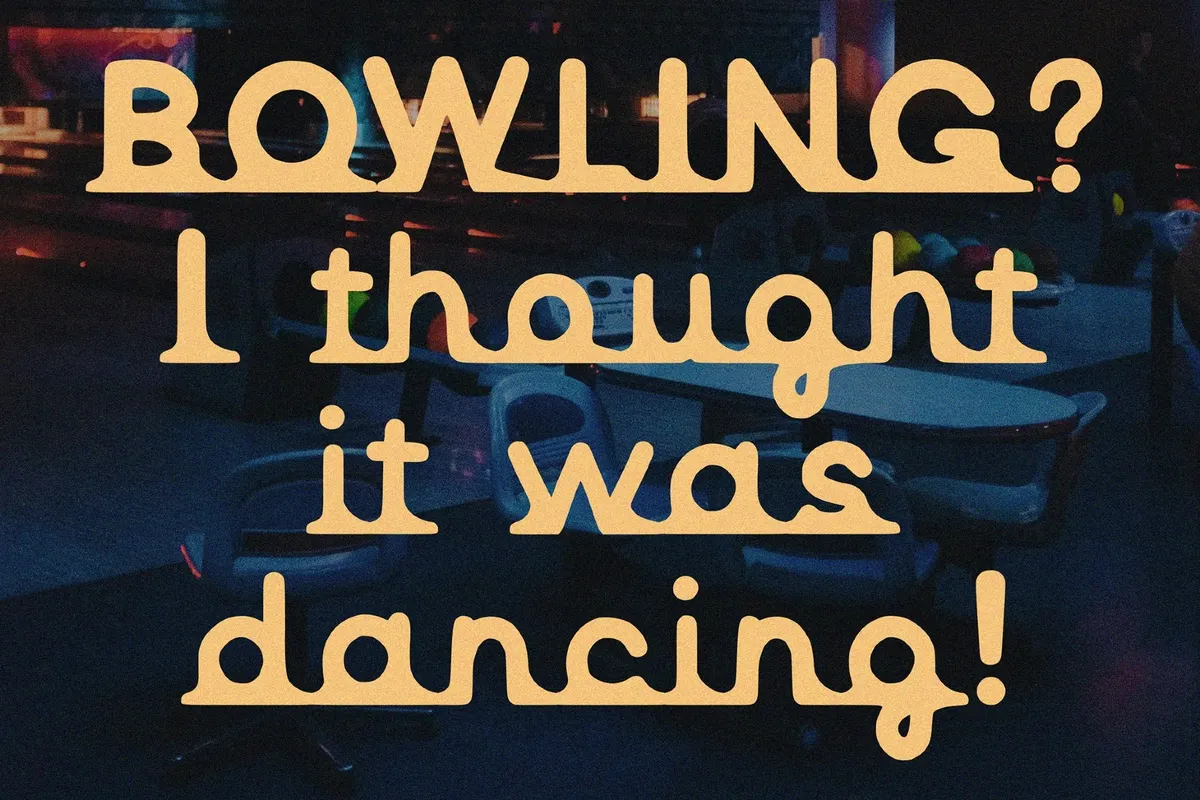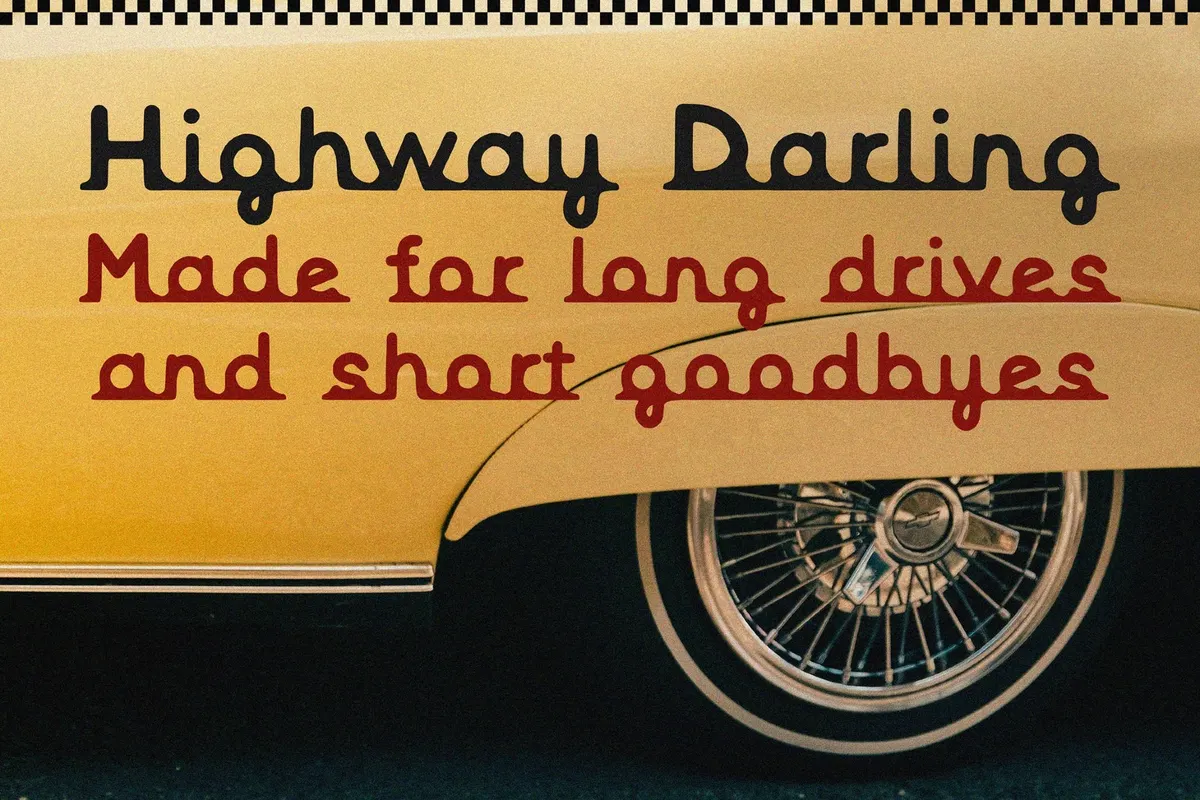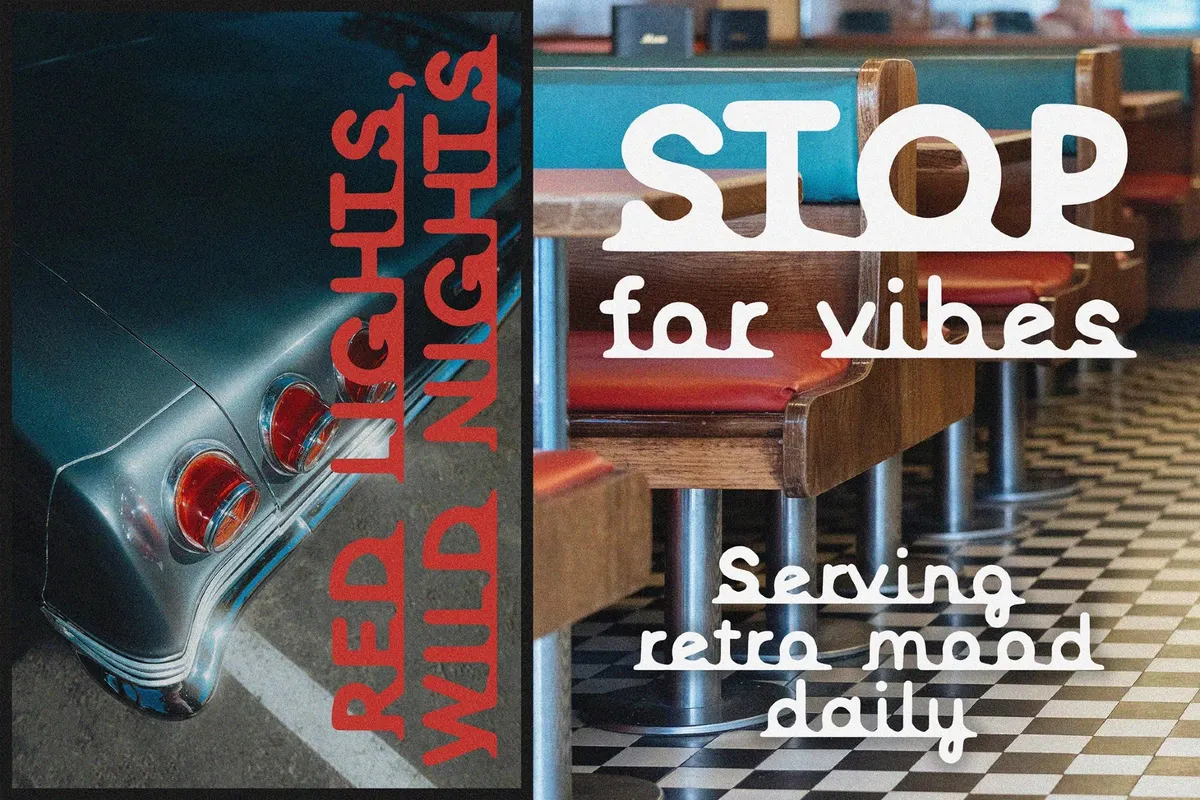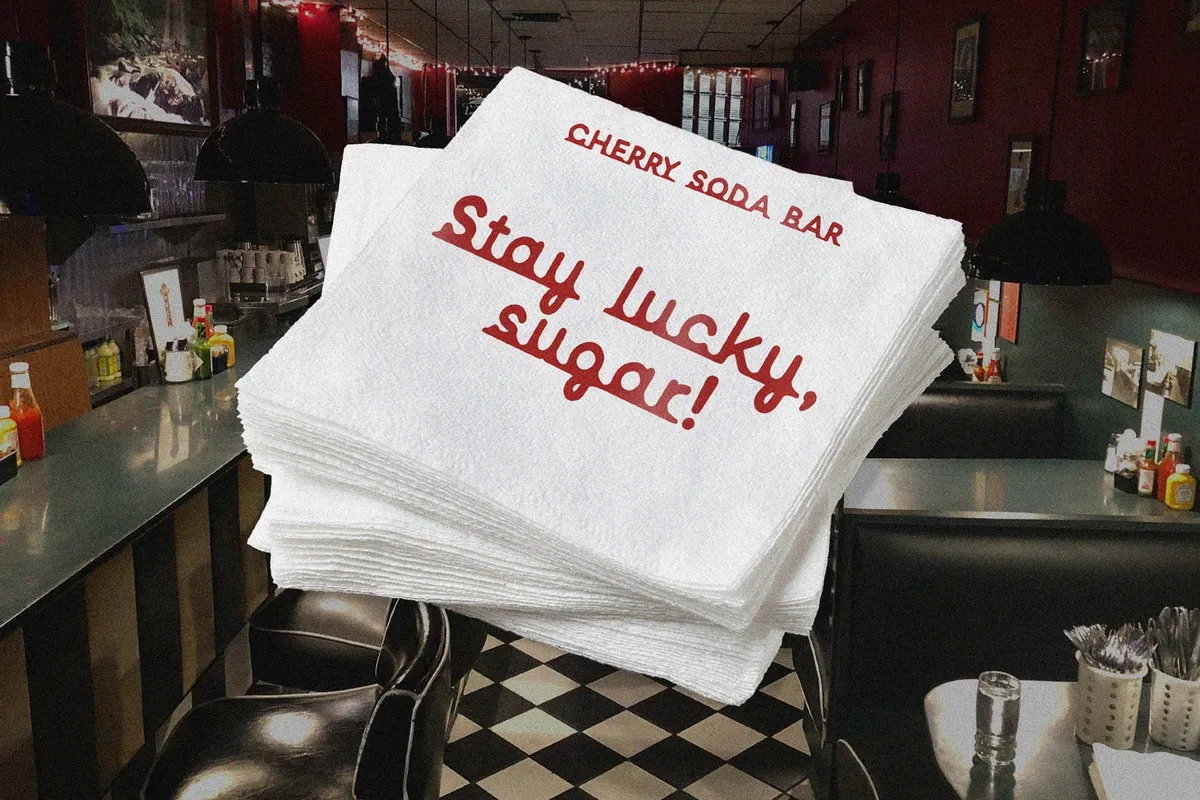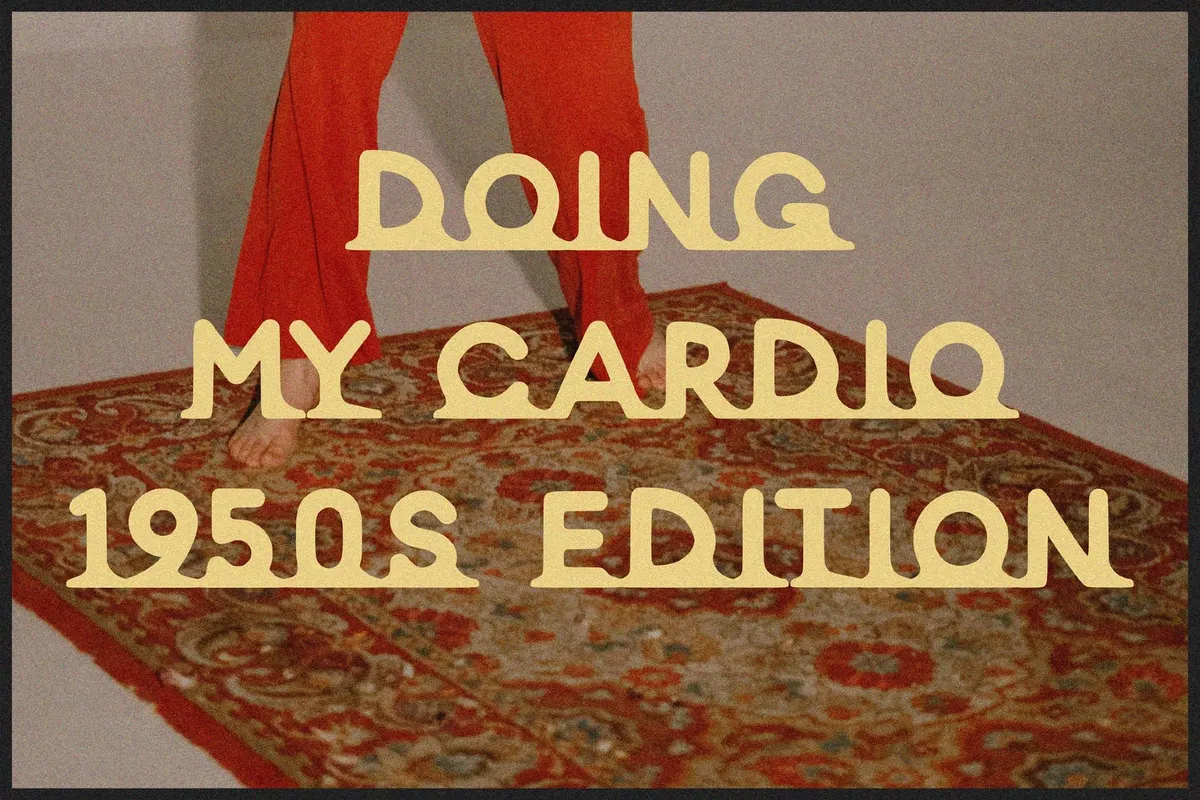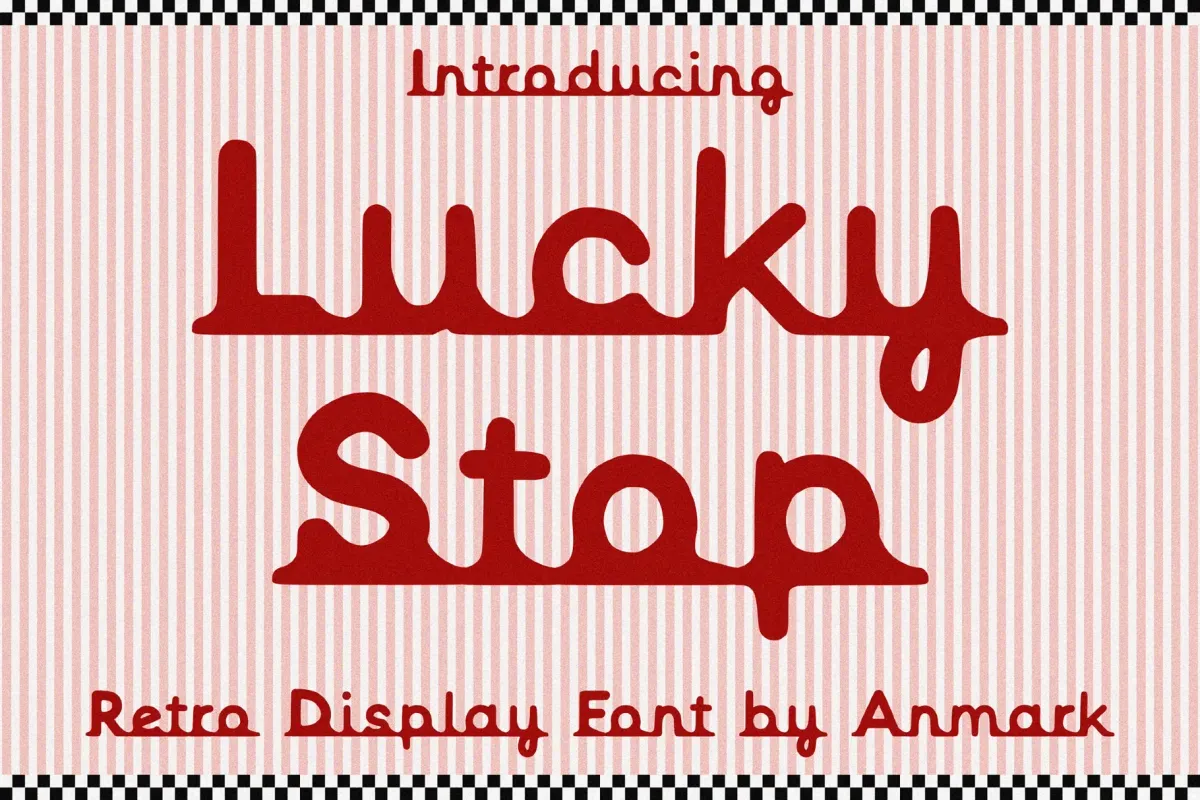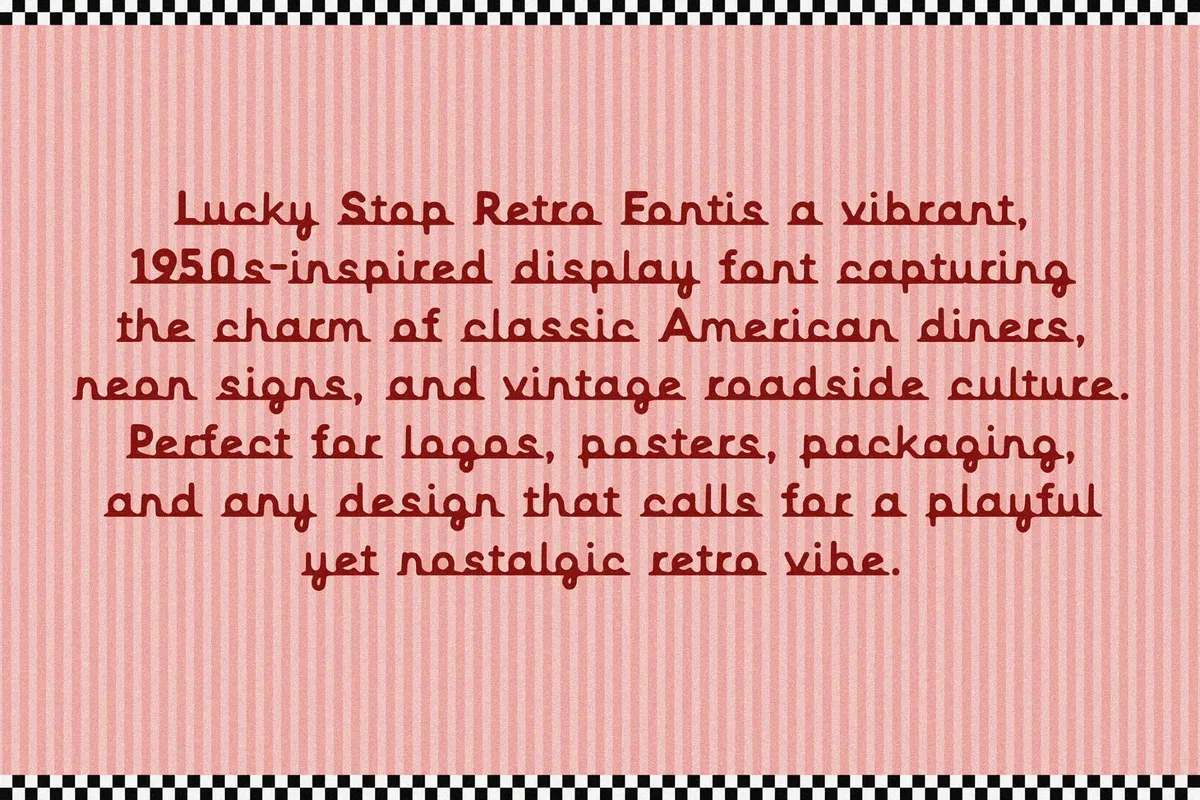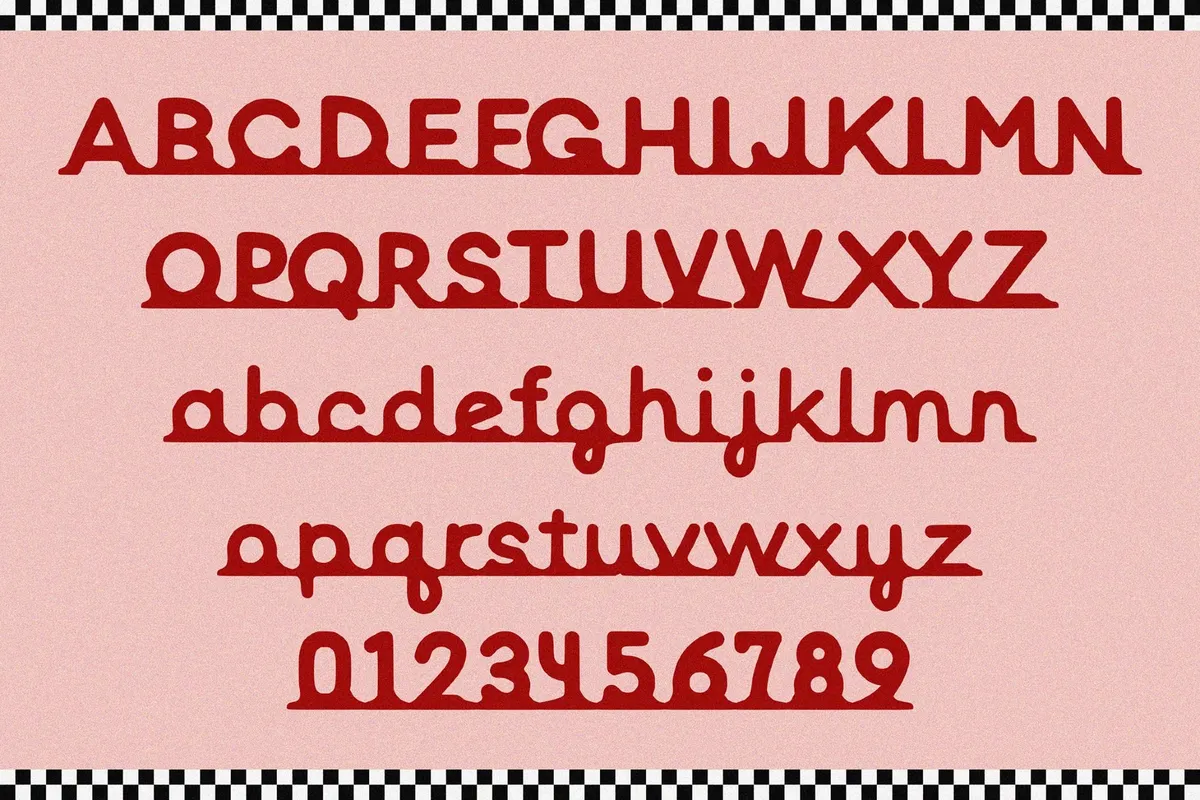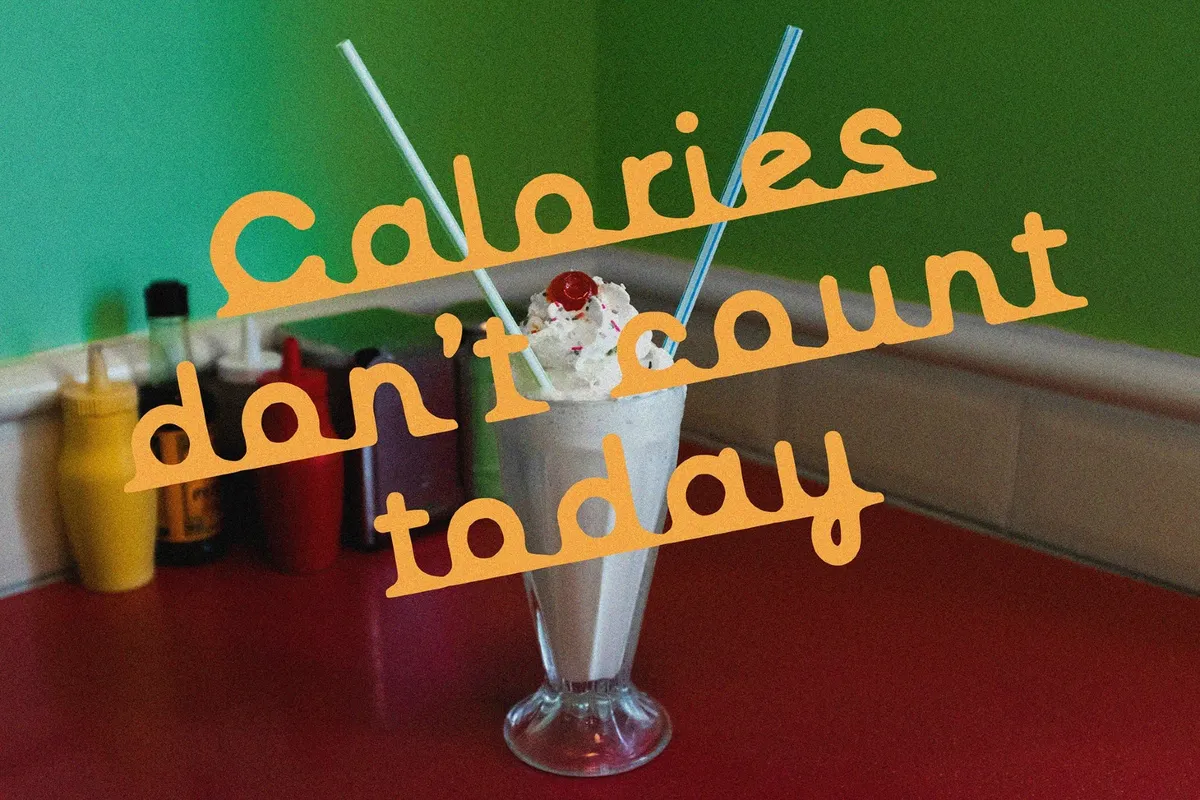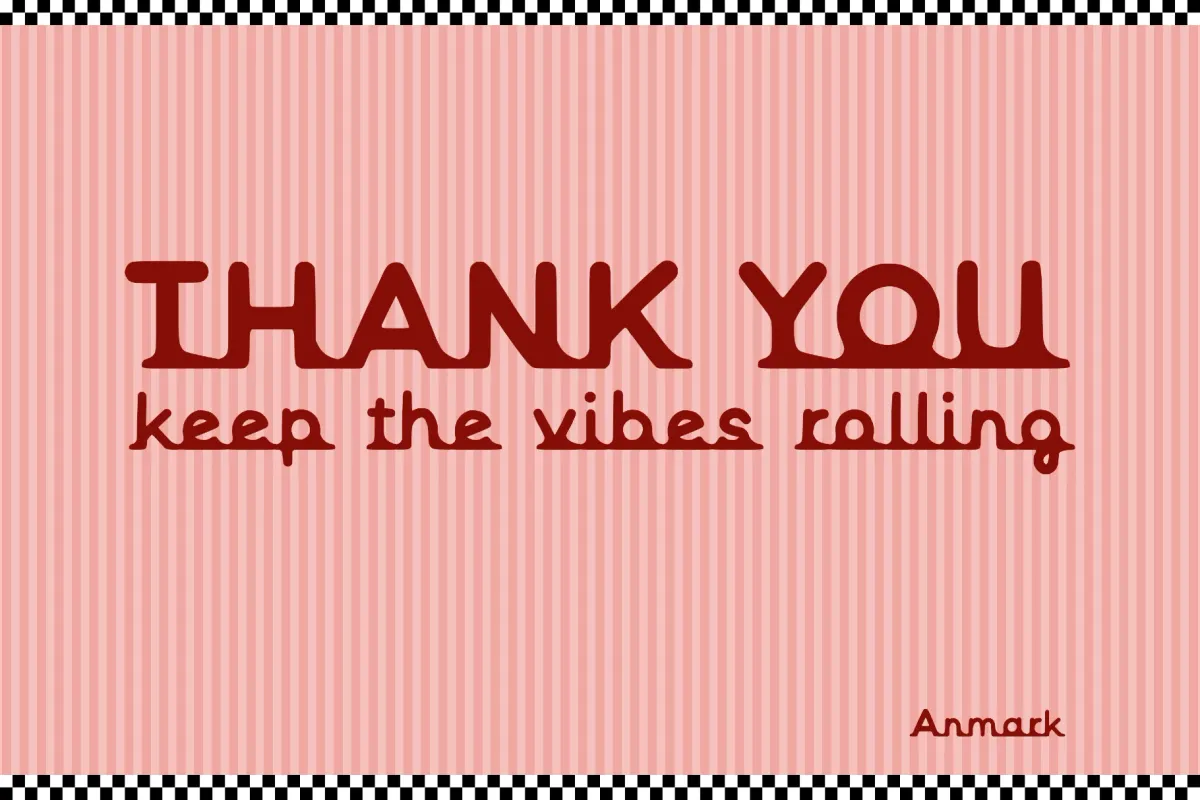
Lucky Stop — Display Retro-Vibe Font
LuckyStop
Lucky Stop is a 1950s display font with round and buoyant letterforms, thick strokes, soft corners, and a low, confident stance. A built-in baseline bar grounds the words like a countertop edge, which gives headlines the classic storefront “come on in” clarity.
The overall style comes from diner signage, soda counter menus, and postwar packaging. The uppercase lands like a badge on a jukebox panel, with the lowercase keeping the rounded logic for longer names and short copy. Numbers hold the same bubble weight, so pricing, dates, and sizes don’t look like they wandered in from another decade.
- Diner and café identity — window lettering, menu headings, tray liners.
- Retro food packaging — candy wraps, soda labels, cookie boxes.
- Drive-in and cinema graphics — marquee-style posters, ticket designs, stubs.
- Bowling alley and arcade branding — score cards, signage, promo flyers.
- Midcentury retail — price tags, shelf talkers, storefront banners.
- Kids’ products — toy packaging, sticker sheets, party kits.
- Music collateral — rock ’n’ roll posters, jukebox-night flyers, record sleeves.
- Motel-style merch — postcards, key tags, souvenir tees.